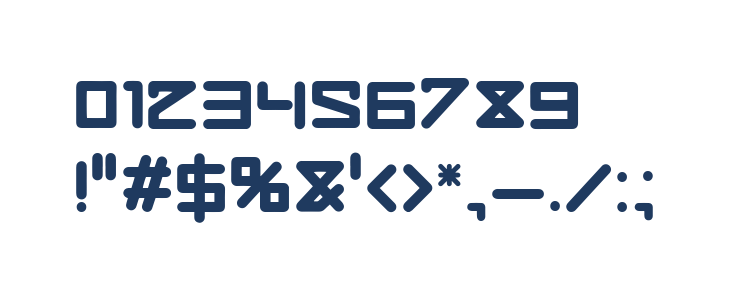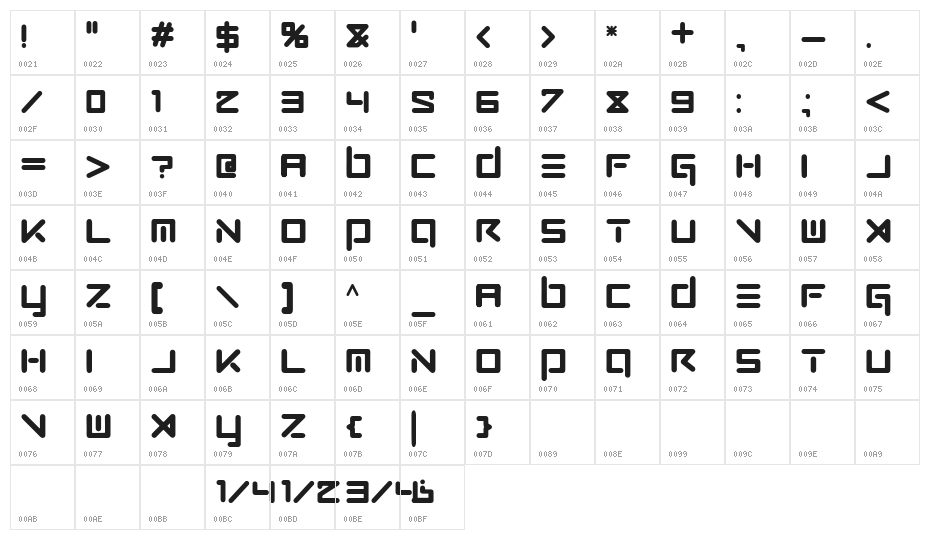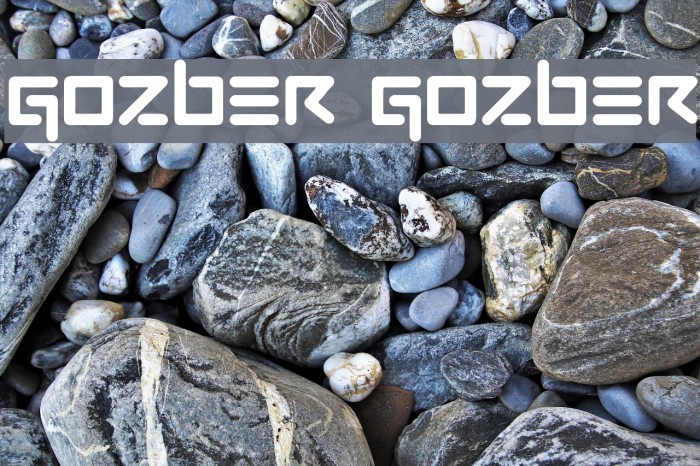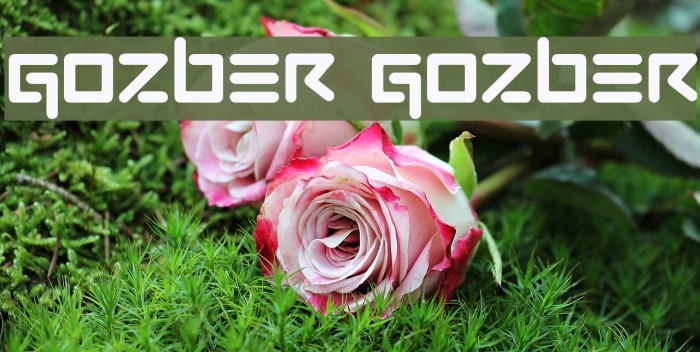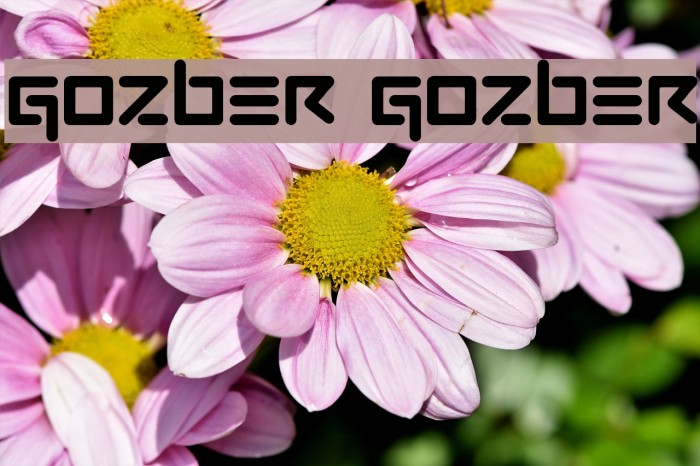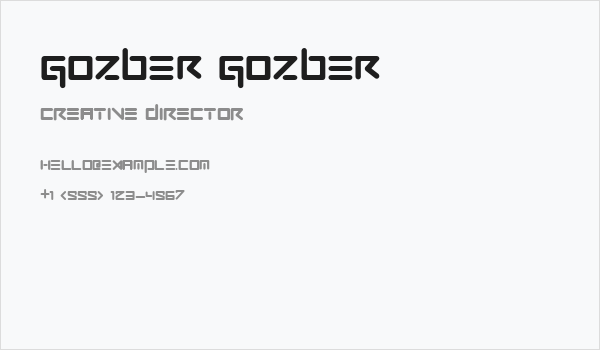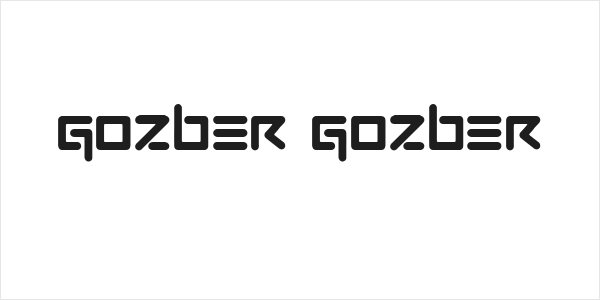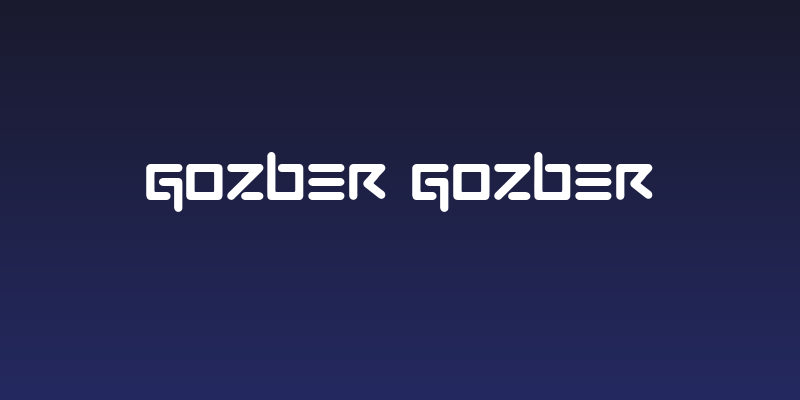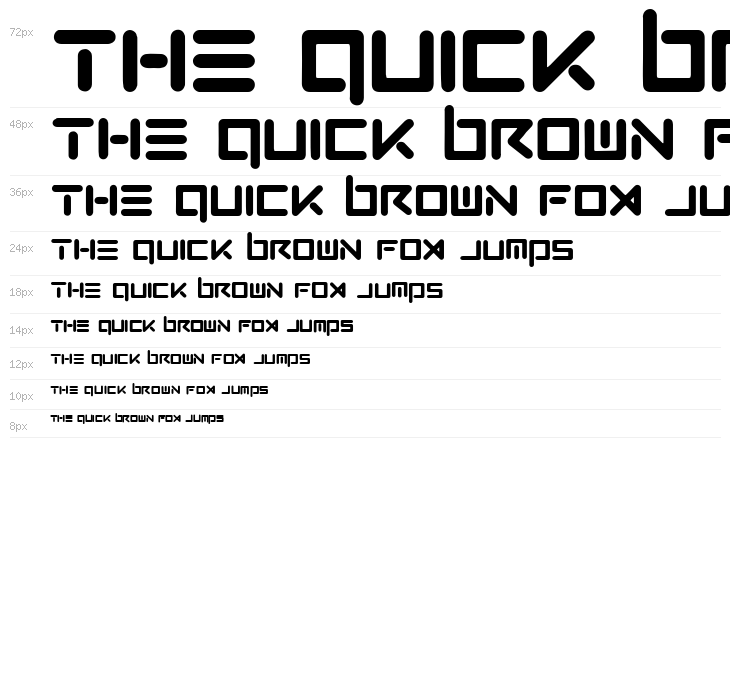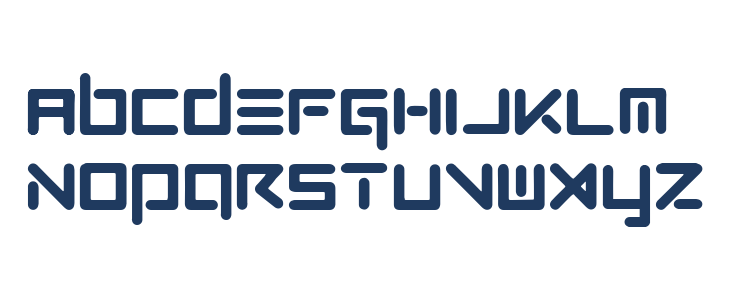
GOZBER GOZBER Font
This font features a futuristic and geometric design, characterized by its bold and rounded letterforms. Each character is constructed with a consistent stroke width, giving it a uniform appearance. The font's design is clean and modern, with a slight technological feel, making it suitable for digital and tech-related projects. The uppercase and lowercase letters maintain a similar style, ensuring readability and cohesion. The numerals and special characters are designed to match the overall aesthetic, providing a comprehensive set for various uses.
| Proposed Projects | Ideal for tech branding, digital interfaces, video game design, and futuristic-themed posters. |